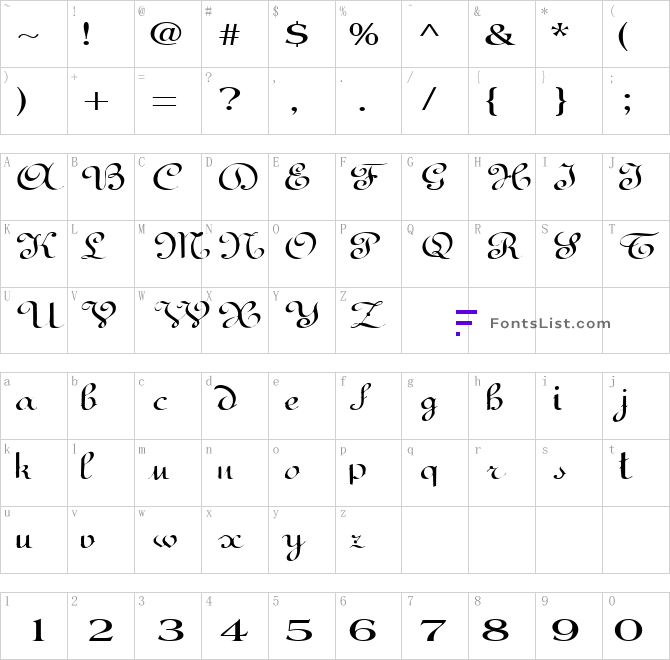
- Font Name:BedFord ttext
BedFord-Regular-ttext.ttf is a very beautiful artistic font, BedFord-Regular-ttext.ttf is widely used in the design and printing of various books and pictures,BedFord-Regular-ttext.ttf has a strong visual impact,BedFord-Regular-ttext.ttf is a commonly used font in newspapers, magazines and books, and is used in posters, e-commerce Poster design, store design, logo design, font design and other fields.BedFord-Regular-ttext.